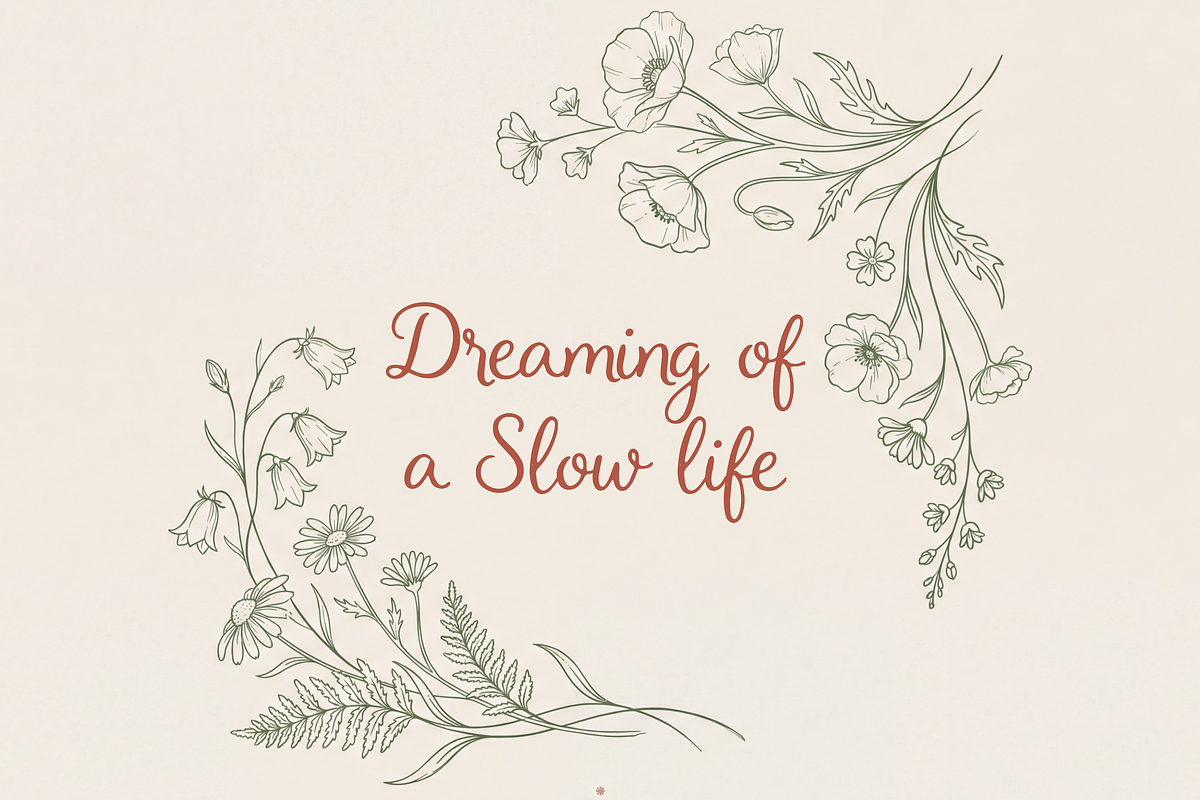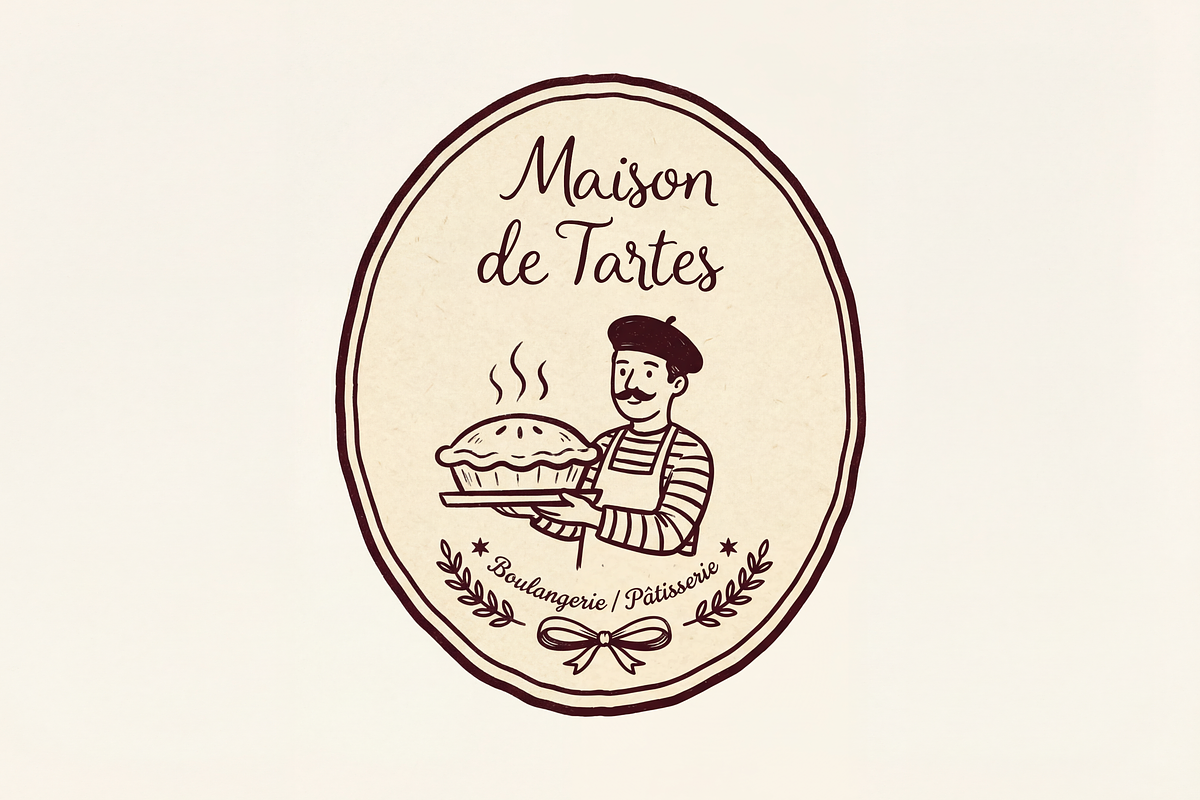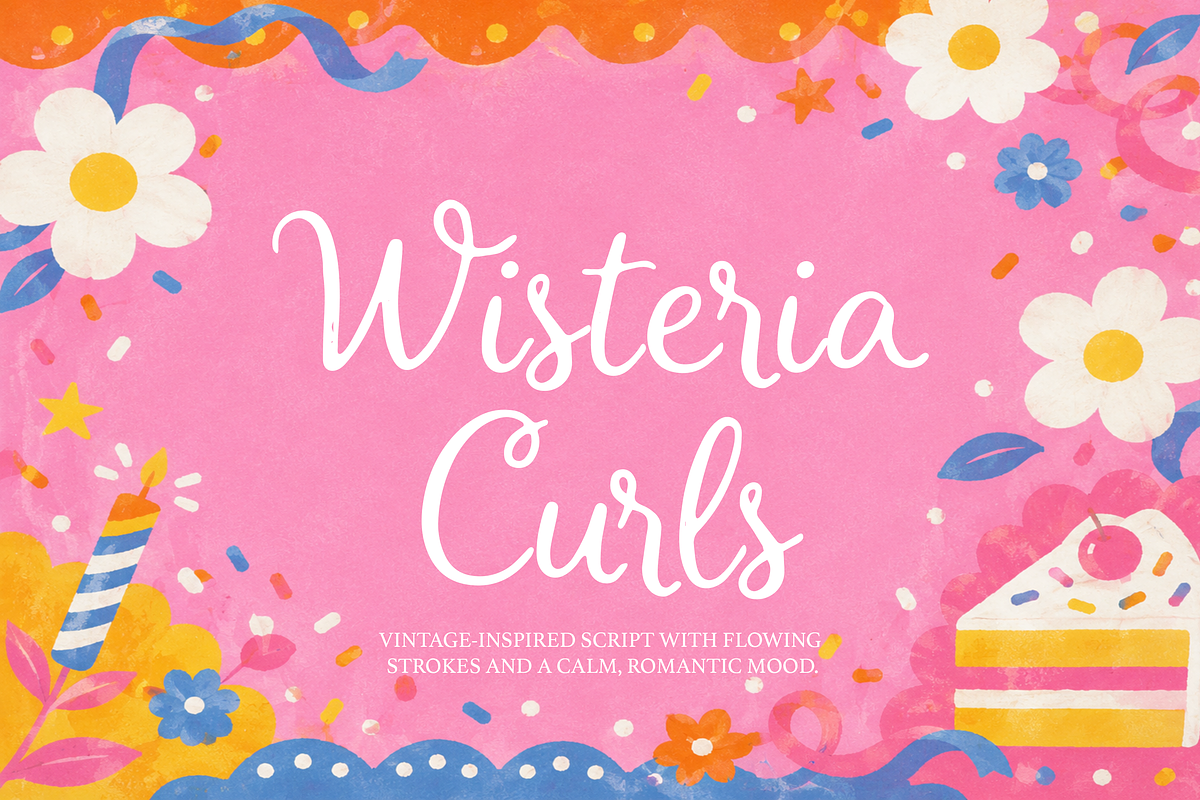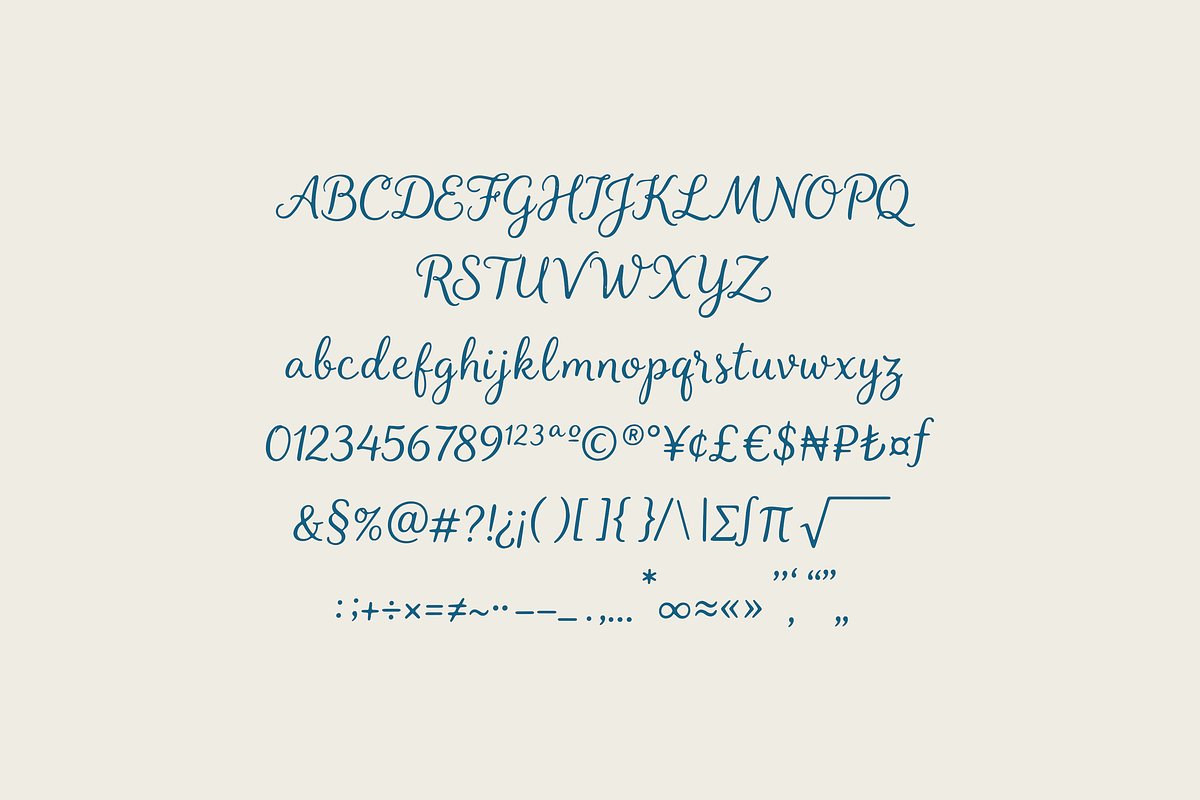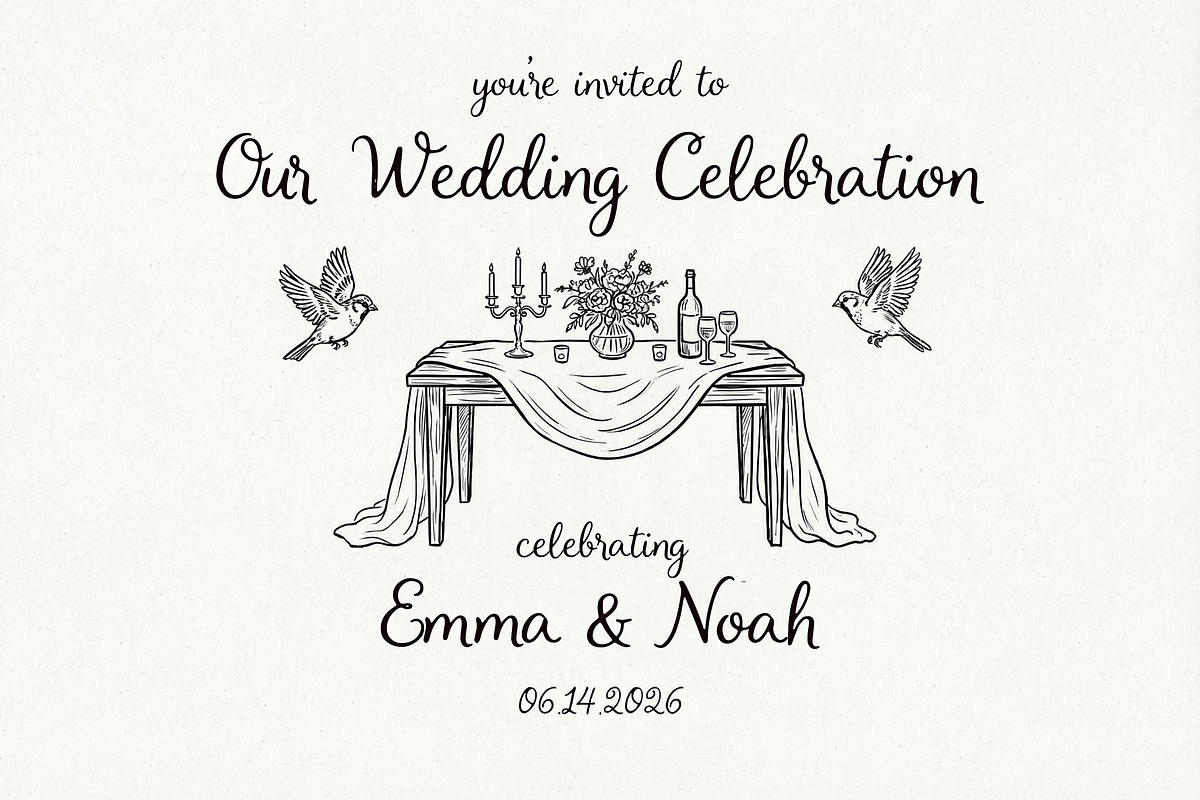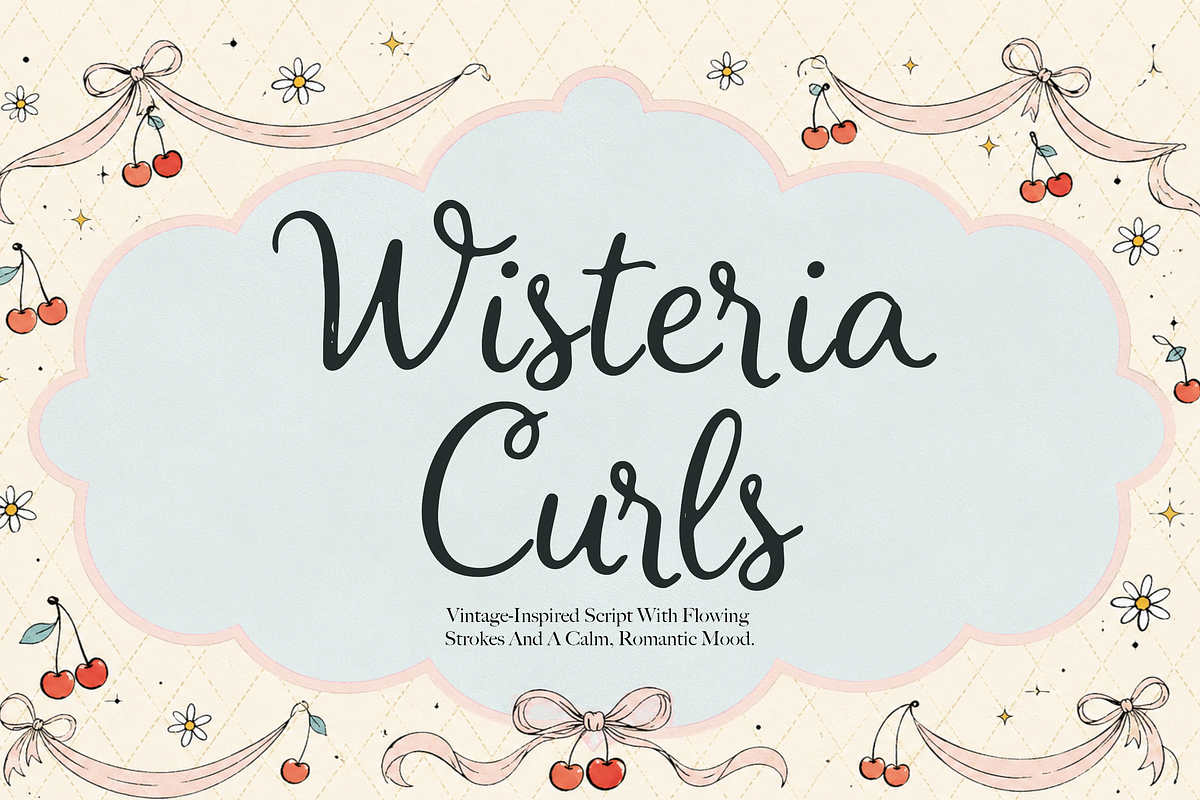
Wisteria Curls | Romantic Script
Meet Wisteria Curls — a vintage-inspired script font designed with soft, flowing strokes and delicate curls that feel effortlessly romantic. It’s graceful without being too formal, and playful without losing its elegance.
Use Wisteria Curls when you want your typography to feel warm, dreamy, and timeless — like a love note, a Paris café menu, or a vintage beauty label.
wedding invitations & stationery
logos & feminine branding
packaging (beauty, candles, boutique)
quotes, posters & social media
greeting cards & labels